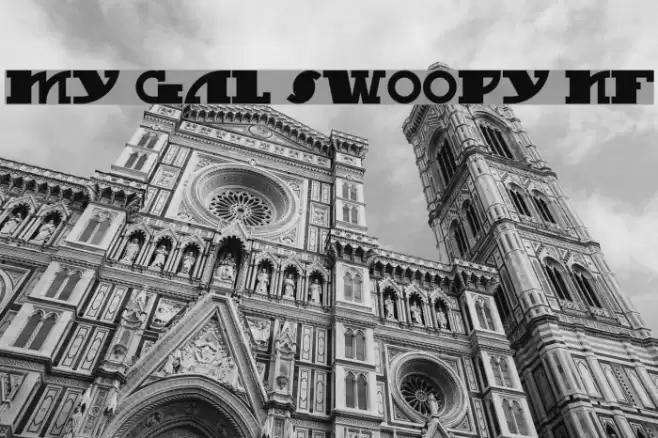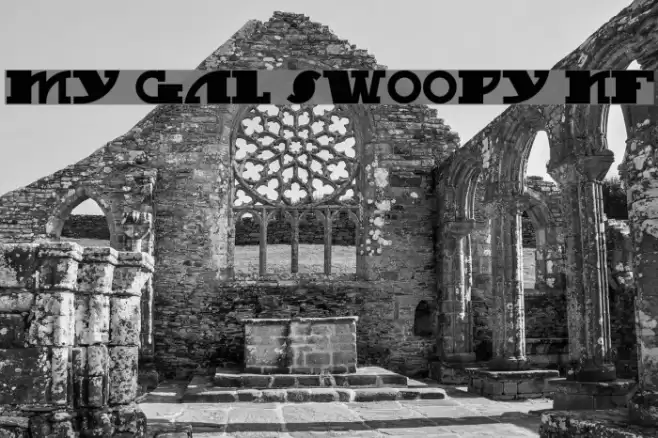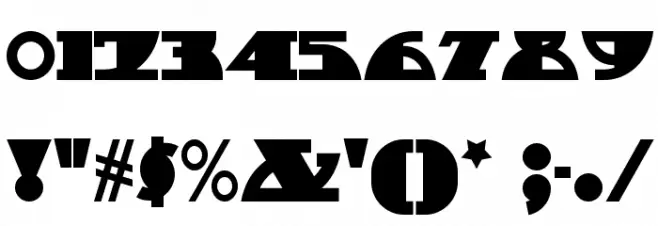
My Gal Swoopy NF Font
My Gal Swoopy NF Description
This bold and striking font features a unique, geometric style with a strong presence. The characters are crafted with sharp angles and bold curves, creating a dynamic and eye-catching appearance. The uppercase letters are particularly distinctive, with some characters incorporating swooping elements that add a sense of motion and flair. The numbers and special characters maintain this bold, geometric style, ensuring consistency across the entire typeface. This font's design is both modern and retro, making it versatile for various creative applications.
A bold, geometric font with dynamic curves and angles, offering a modern yet retro aesthetic from Retro fonts.
- Proposed Projects: Ideal for branding, poster design, album covers, and any project requiring a bold, attention-grabbing typeface.
- Overall Style: Modern, Retro